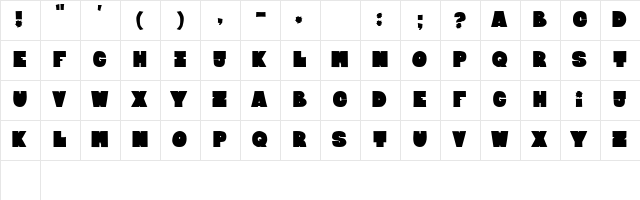
Bloxxxx ExtraBold
Design Context for Bloxxxx Typeface
Bloxxxx offers clean, dependable letterforms without strong stylistic allegiance, making it a practical choice for designers who need flexibility. Its bold stroke weight gives it real presence on the page.